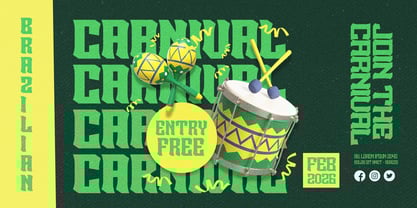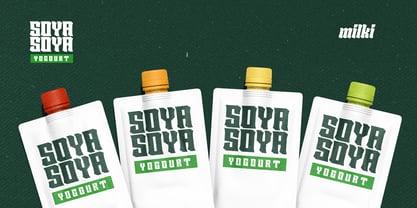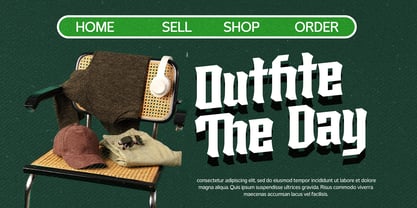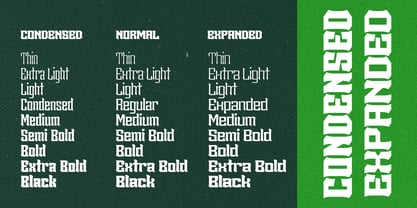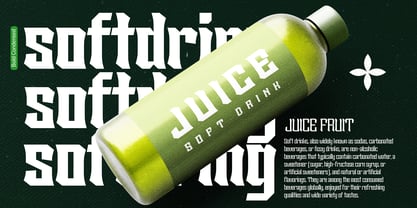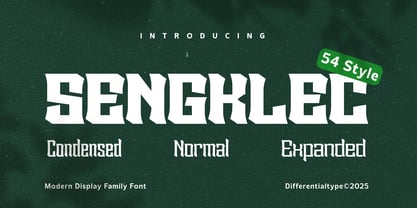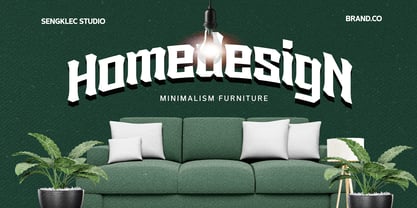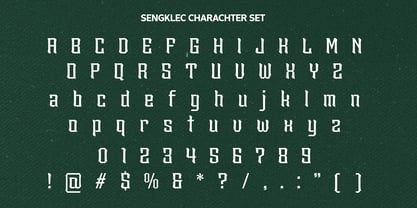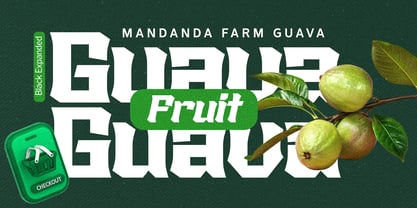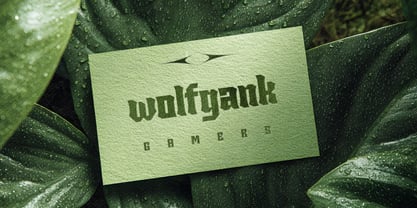
Sengklec
by Differentialtype
The Sengklec Font Family was designed by Sidik Sidik and published by Differentialtype. Sengklec contains 54 styles and family package options.
Introducing Sengklec, a versatile display font family featuring an impressive 54 styles, offering a full spectrum of dynamic weights, widths, and italic variations. Sengklec masterfully blends sleek, modern aesthetics with a distinctive classic blackletter influence, creating a truly captivating and characterful appearance. With such a rich array of styles, Sengklec ensures you'll always find the perfect option for any design need, from the most subtle to the most striking.
With its strong and stylish character, Sengklec is an ideal choice for a wide range of design applications demanding visual impact. Whether you're aiming to create a striking poster, a memorable logo, an attention-grabbing headline, or to build unforgettable product branding, Sengklec is ready to bring your creative vision to life. Its exceptional flexibility makes it an invaluable asset for designers looking to inject uniqueness and power into their work, ensuring every project looks professional and captivating.